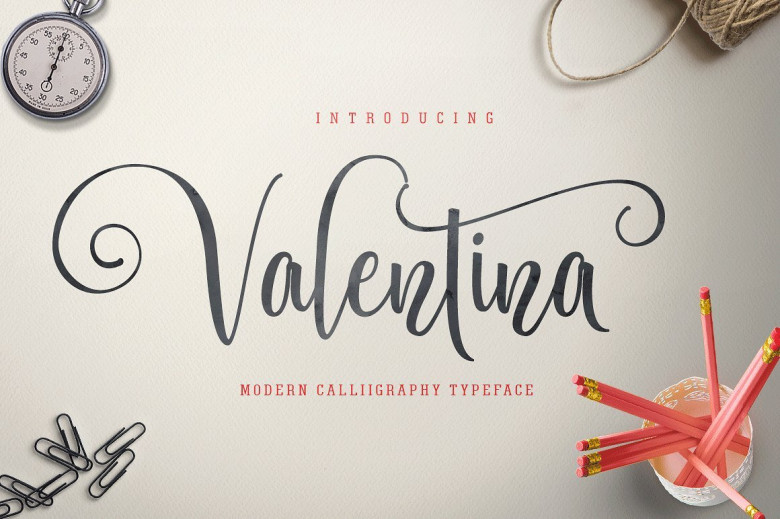
Valentina Calligraphy Font
A modern calligraphy typeface. Introducing Valentina Font. Valentinais a font that made the hand by having the character up and down like a dancer. Valentina has a very unique style of calligraphy, it is very suitable for use in the work of modern design. combines from copperplate to contemporary typeface with a dancing baseline, modern and elegant touch. Valentina features 531 glyphs and alternate characters Include . including initial and terminal letters, alternates, ligatures and multiple language support.